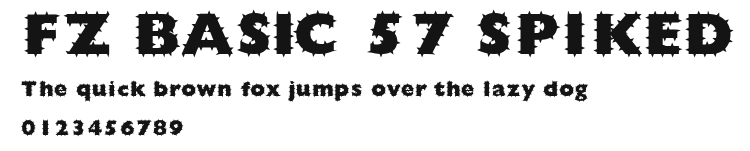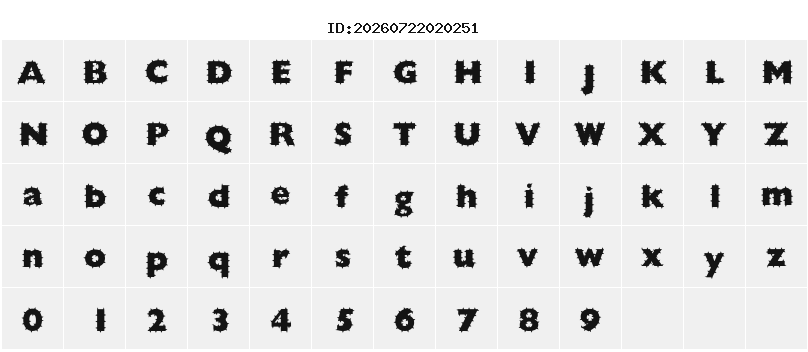
About FZ BASIC 57 SPIKED.ttf
FZ BASIC 57 SPIKED.ttf is a modern, elegant sans-serif font designed for ultimate readability and visual harmony. Perfect for branding, headlines, web design, and print materials.